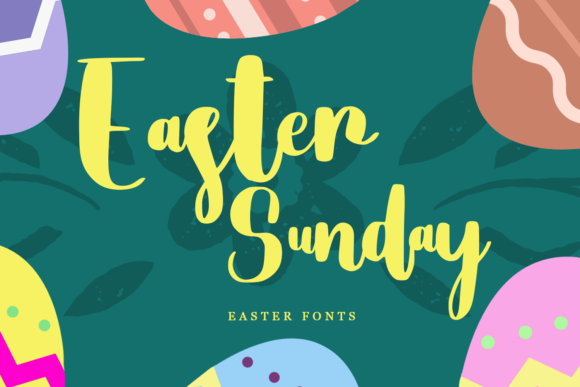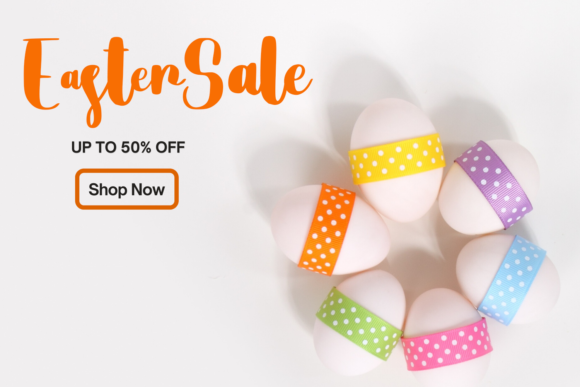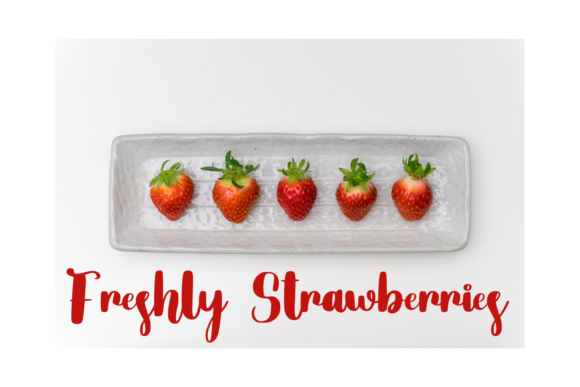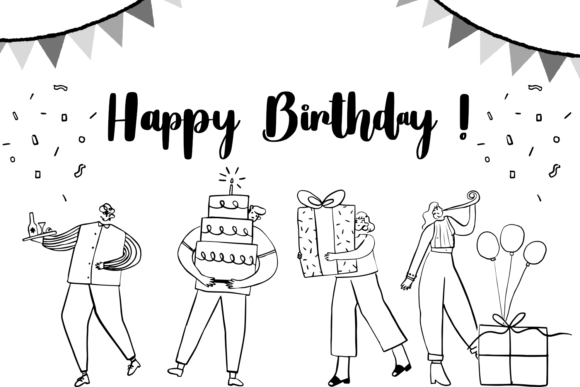
About Easter Sunday Font
Easter Sunday is a delightful script font that exudes charm and whimsy in every stroke. This captivating handwritten typeface brings a playful and slightly quirky vibe to your designs, making them stand out with a unique touch of personality. With its dancing brush style, Easter Sunday is the perfect choice for infusing your projects with joy and creativity, adding a cheerful and lighthearted feel to any design endeavor.
Designed to evoke feelings of warmth and happiness, Easter Sunday captures the essence of the holiday spirit, making it an ideal option for Easter-themed projects such as greeting cards, invitations, posters, and more. Its whimsical nature and graceful letterforms lend themselves beautifully to a wide range of applications, allowing you to unleash your creativity and bring your ideas to life in a fun and engaging way.
The playful curves and lively rhythm of Easter Sunday make it a versatile font that can adapt to various design styles and themes. Whether you’re creating a festive Easter event flyer, crafting a charming social media graphic, or designing a cheerful merchandise label, this font will add an extra layer of charm and character to your creations, ensuring they leave a lasting impression on your audience.
In addition to its aesthetic appeal, Easter Sunday also offers practical benefits for designers. Its legible letterforms ensure readability across different mediums and sizes, making it suitable for both print and digital applications. Whether displayed on a physical product or viewed on a screen, your message will come across clearly and effectively, thanks to the clarity and coherence of this charming script font.
In summary, Easter Sunday is more than just a font—it’s a delightful tool that allows you to infuse your designs with personality, charm, and creativity. Whether you’re celebrating Easter or simply looking to add a playful touch to your projects, this script font is sure to brighten up your designs and bring a smile to everyone who encounters them.